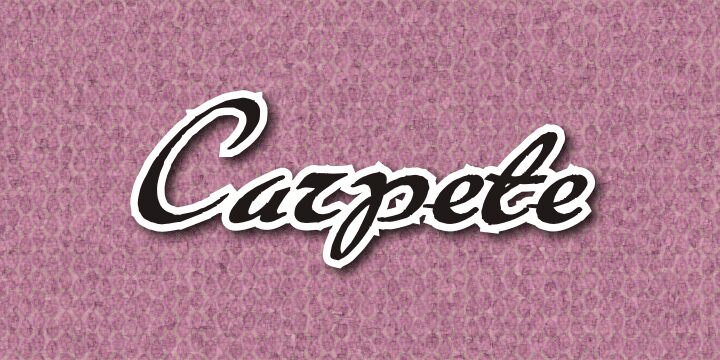
Carpete by Paulo W. is a free calligraphic script with broad, emphatic strokes and sharply tapered ends. Sweeping capitals carry long entry and exit flourishes, and the smaller letters gather into a lively, uneven line.
As expressive display lettering, it can turn a poster title or event invitation into something close to a hand-painted signature, and the same drama fits fashion branding and album artwork. Its restless curves are especially apt for projects centered on live performance, nightlife, or an extravagant personal style.